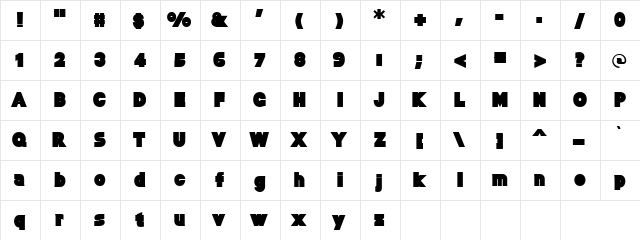
Black Blocks Regular
Design Context for Black Blocks Typeface
Black Blocks is a composed and adaptable typeface that performs quietly and consistently across a wide range of design contexts.